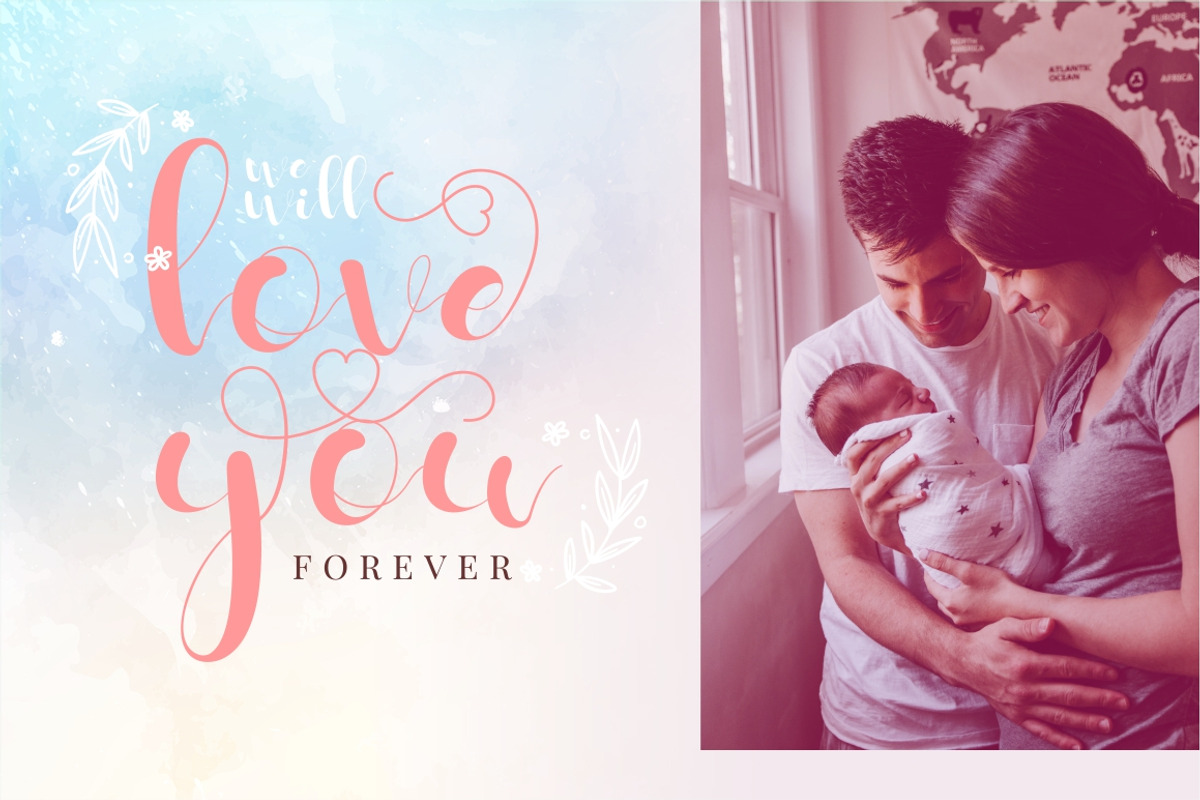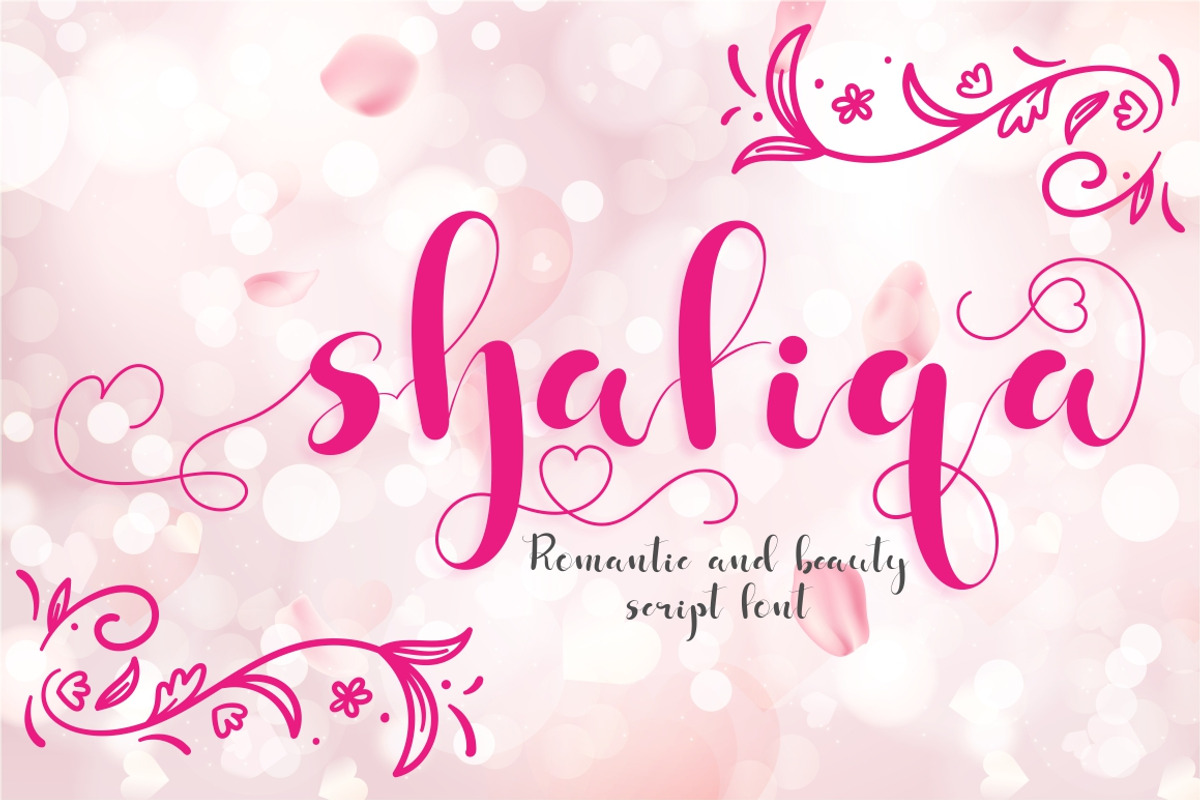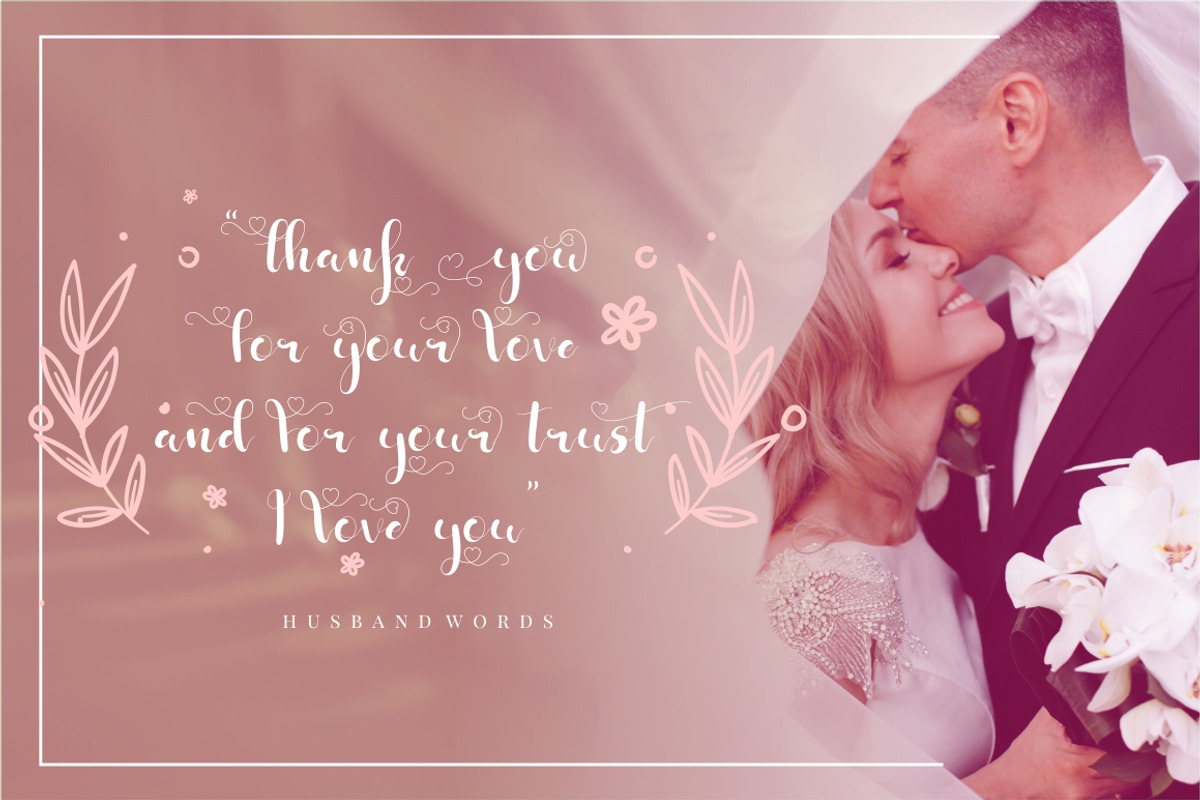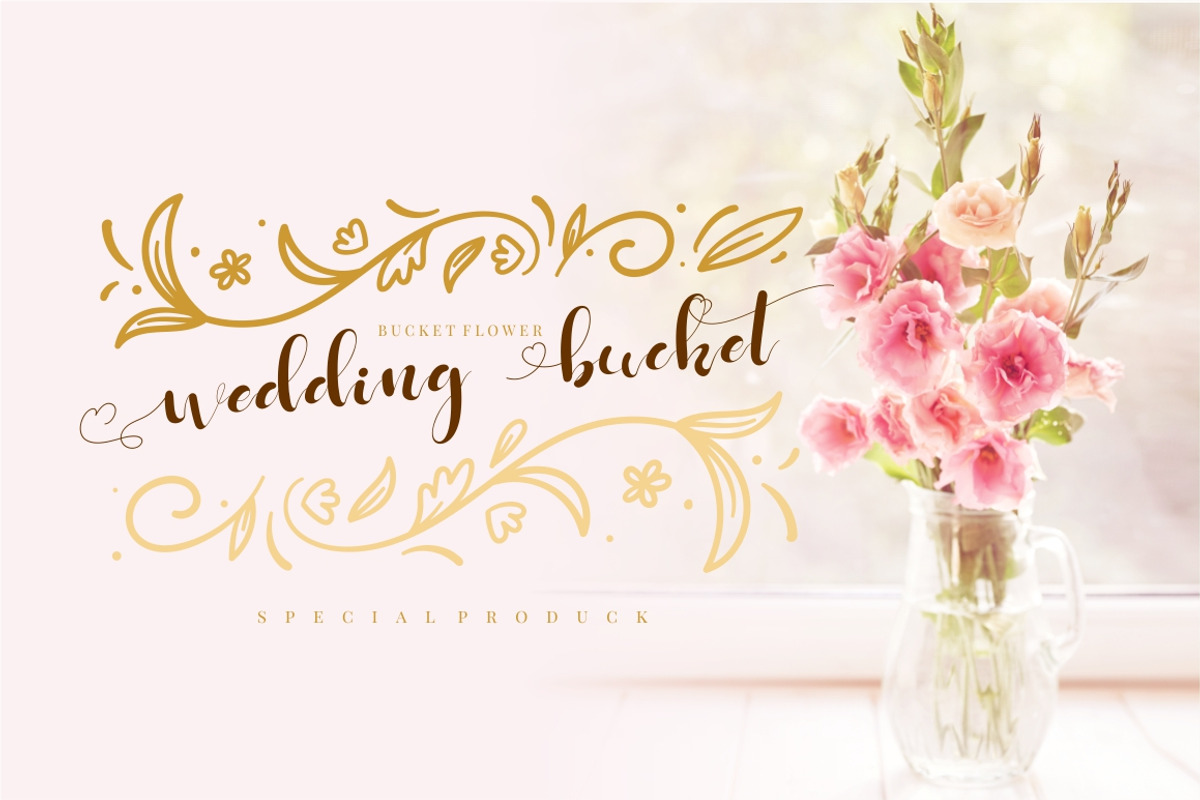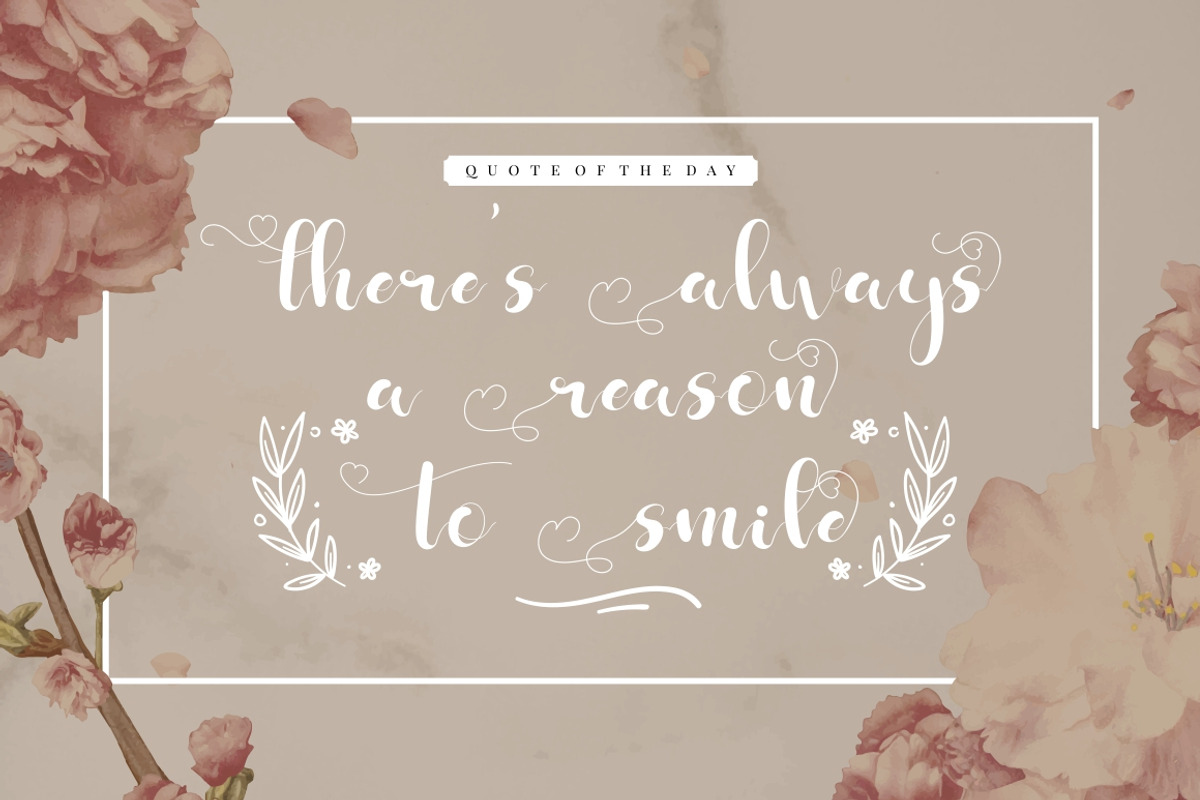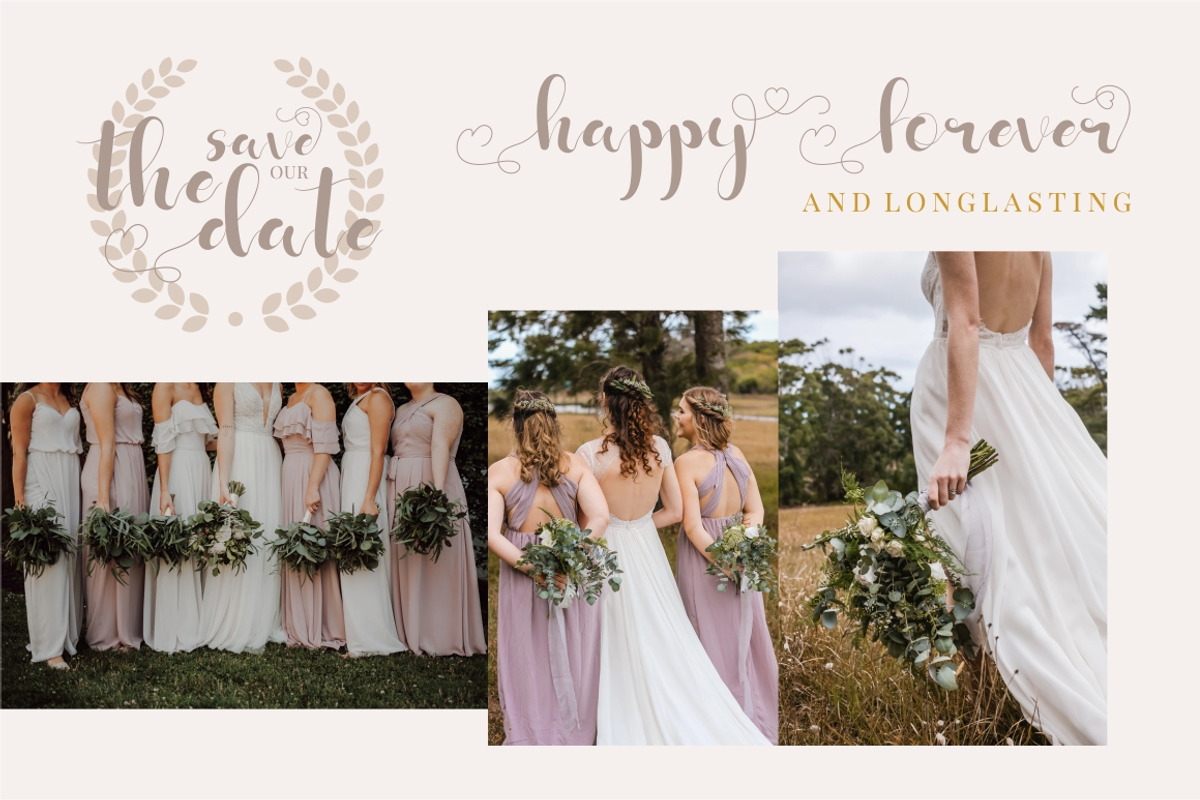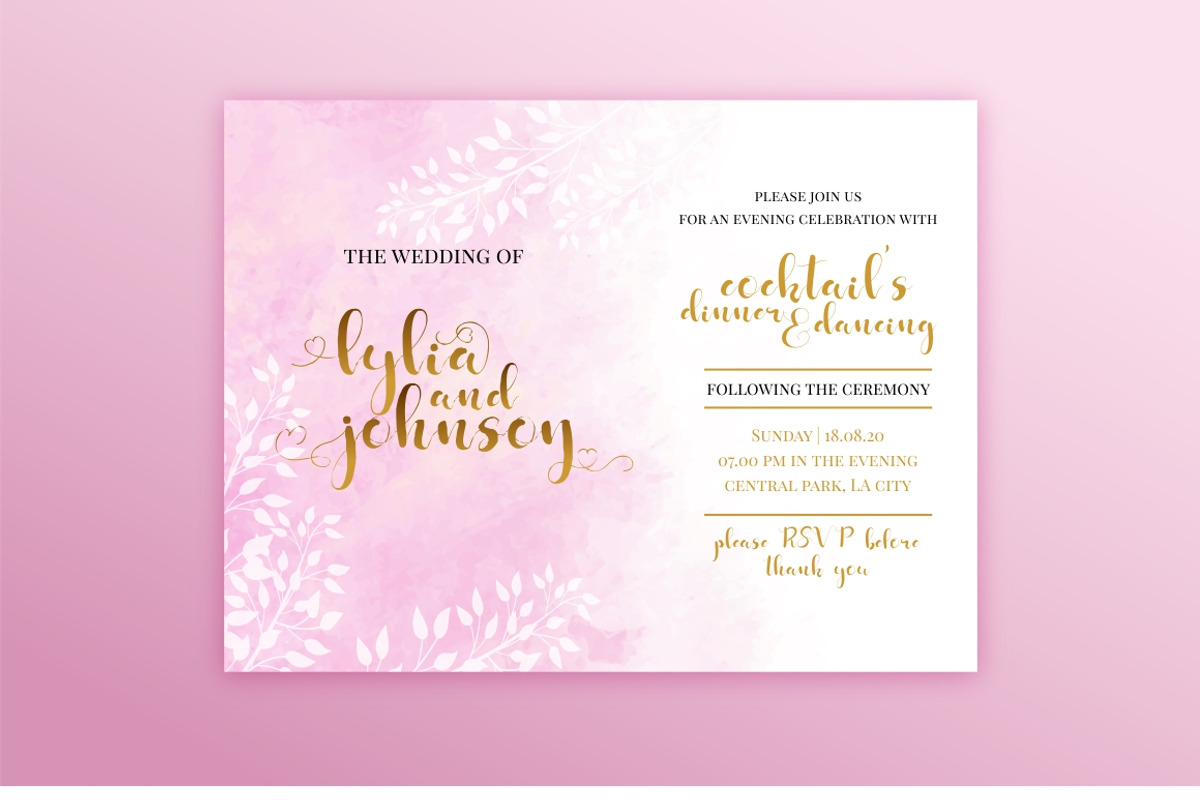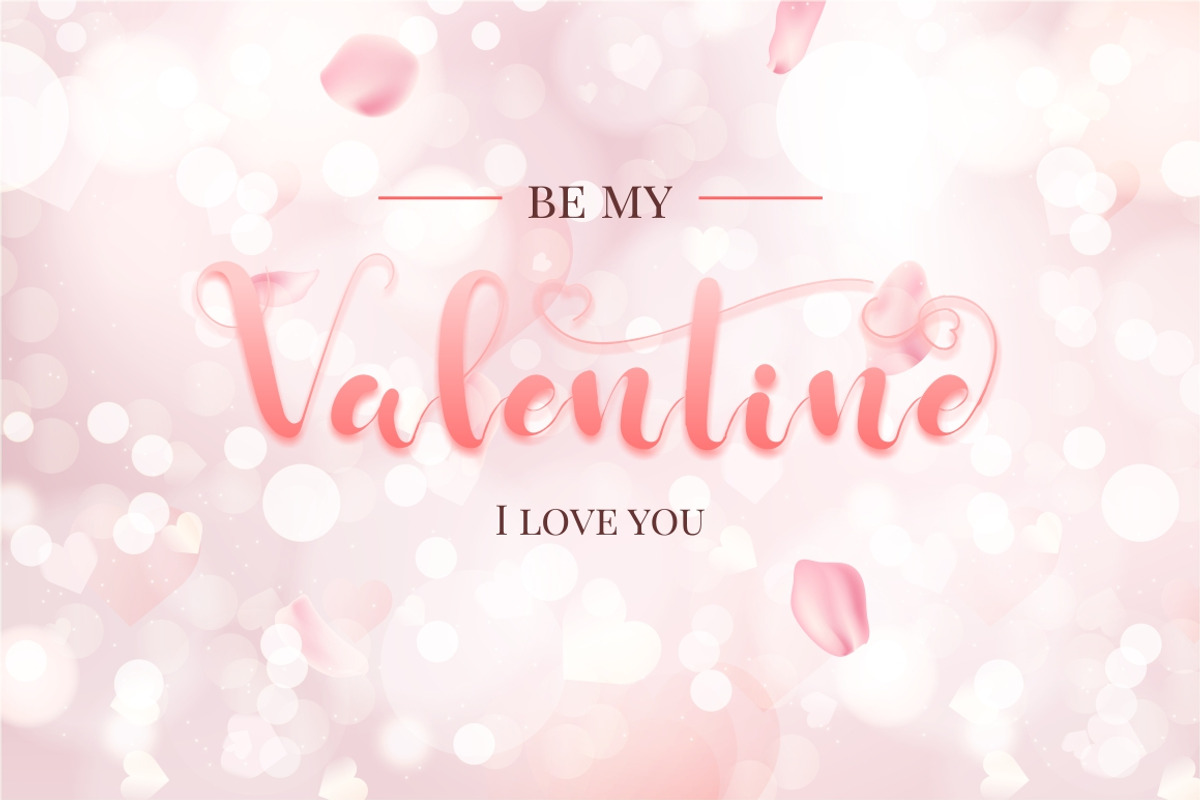
Shafiqa - Romantic Font
Introducing a new romantic and a beautiful handwritting script font called "Shafiqa". Come with open type feature with a lot of alternates, its help you to make great lettering. Shafiqa best uses for heading,cover, poster, logos, quotes, product packaging, header, merchandise, social media & greeting cards and many more. This font is also support multi language. To access the alternate glyphs, you need a program that supports OpenType features such as Adobe Illustrator CS, Adobe Photoshop CC, Adobe Indesign and Corel Draw.
- Come with open type feature with a lot of alternates, its help you to make great lettering.
Shafiqa - Romantic Font by PutraCetol Studio fits naturally into Branding, posters, packaging, typography.